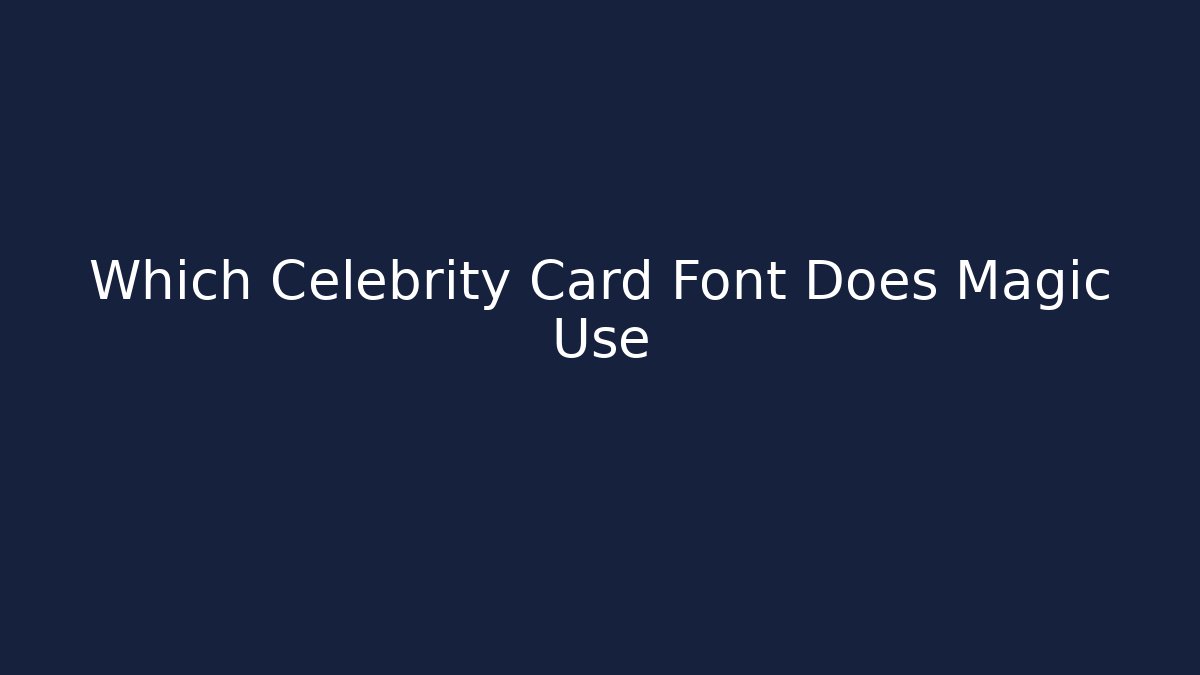
Magic Sets Trendy Celebrity Card Font
Today, streamers showcase flashy decks on screen. Viewers copy styles, driving demand for signature branding across games and social clips.
Which Celebrity Card Font Does Magic Use Is Display Font
Which Celebrity Card Font Does Magic Use is a bold display face. Clear outlines and tight spacing make logos pop on camera. Studies indicate clean, high contrast glyphs improve recognition in thumbnails and highlight packages.
How Glyph Style Drives Viewer Engagement
Twitch panels and YouTube overlays rely on instant readability. Teams choose variants that survive compression and small previews. Research shows expressive strokes paired with sturdy forms increase recall during fast gameplay.
Simple Takeaway
Pick a sturdy display font for instant, camera-ready identity.
Does Magic Limit Use To One Specific Typeface?
No, teams adopt multiple weights from the same family for flexibility.